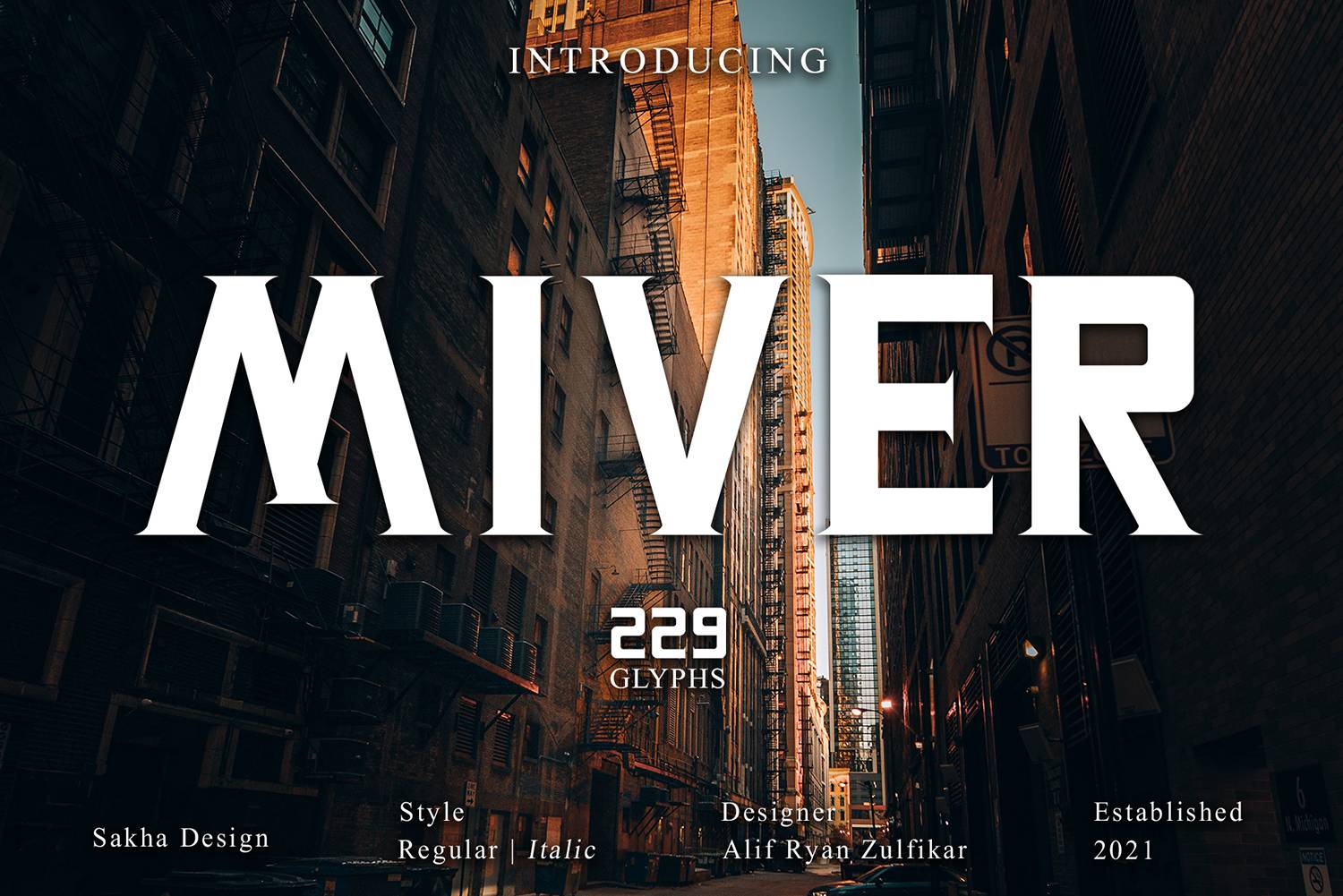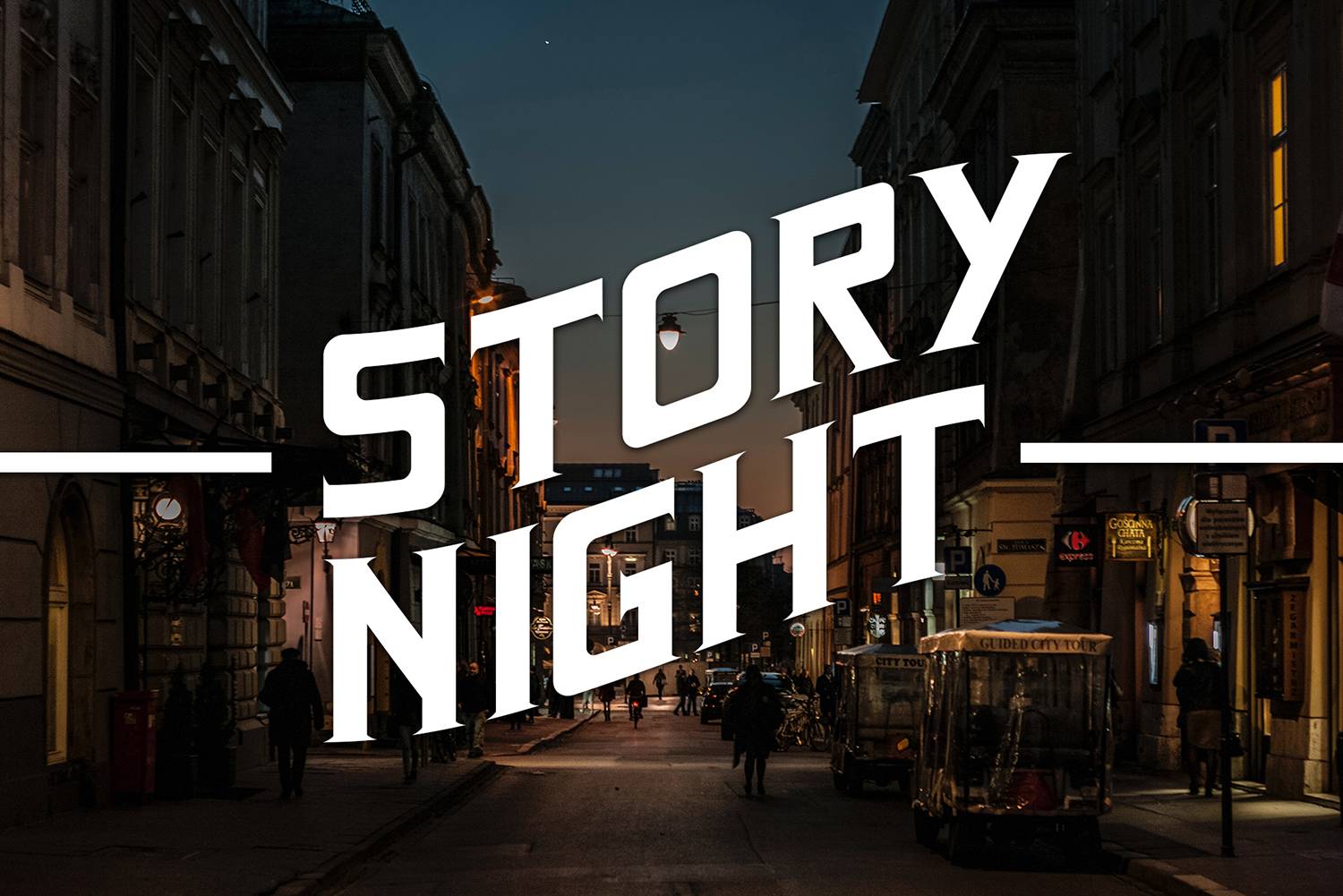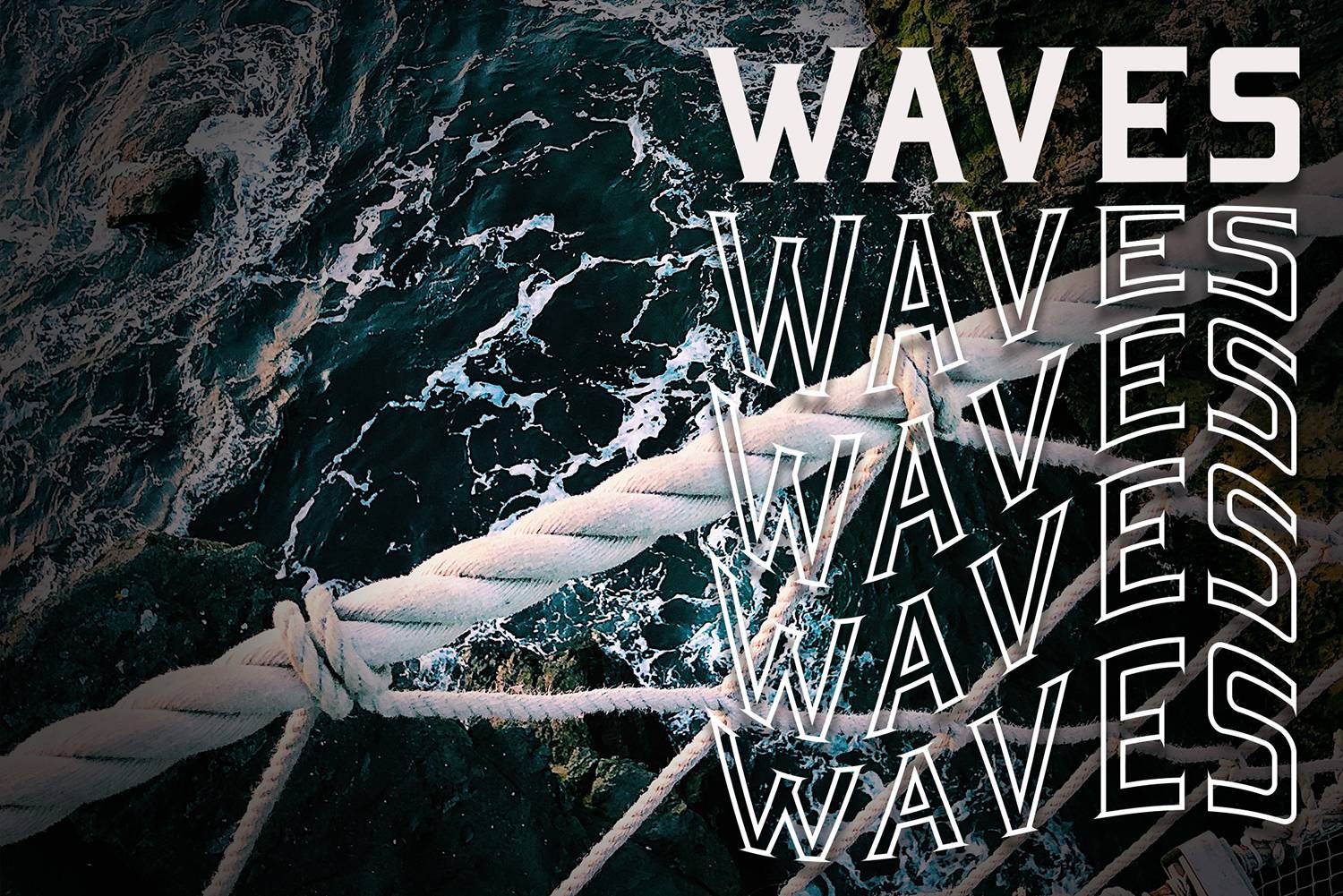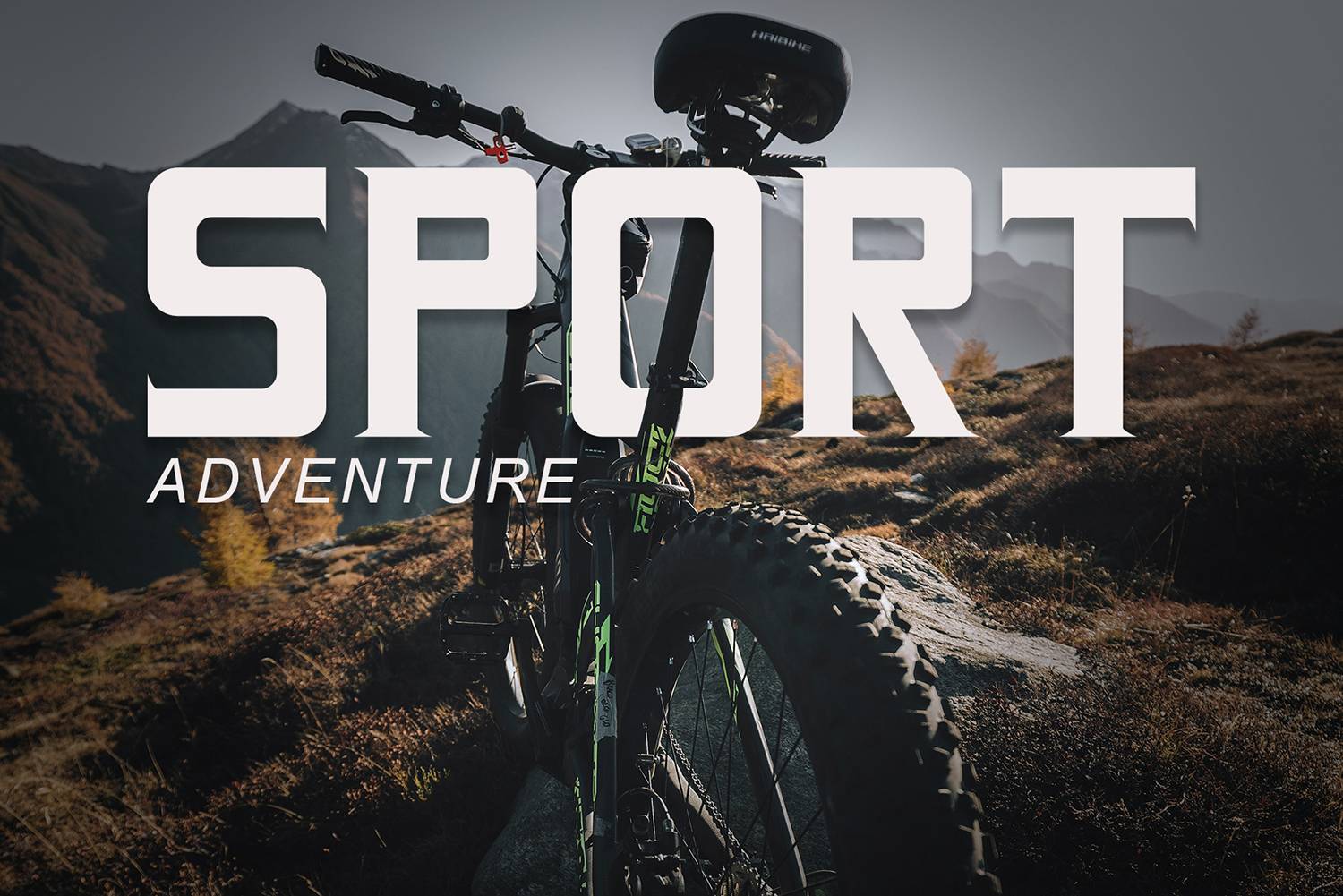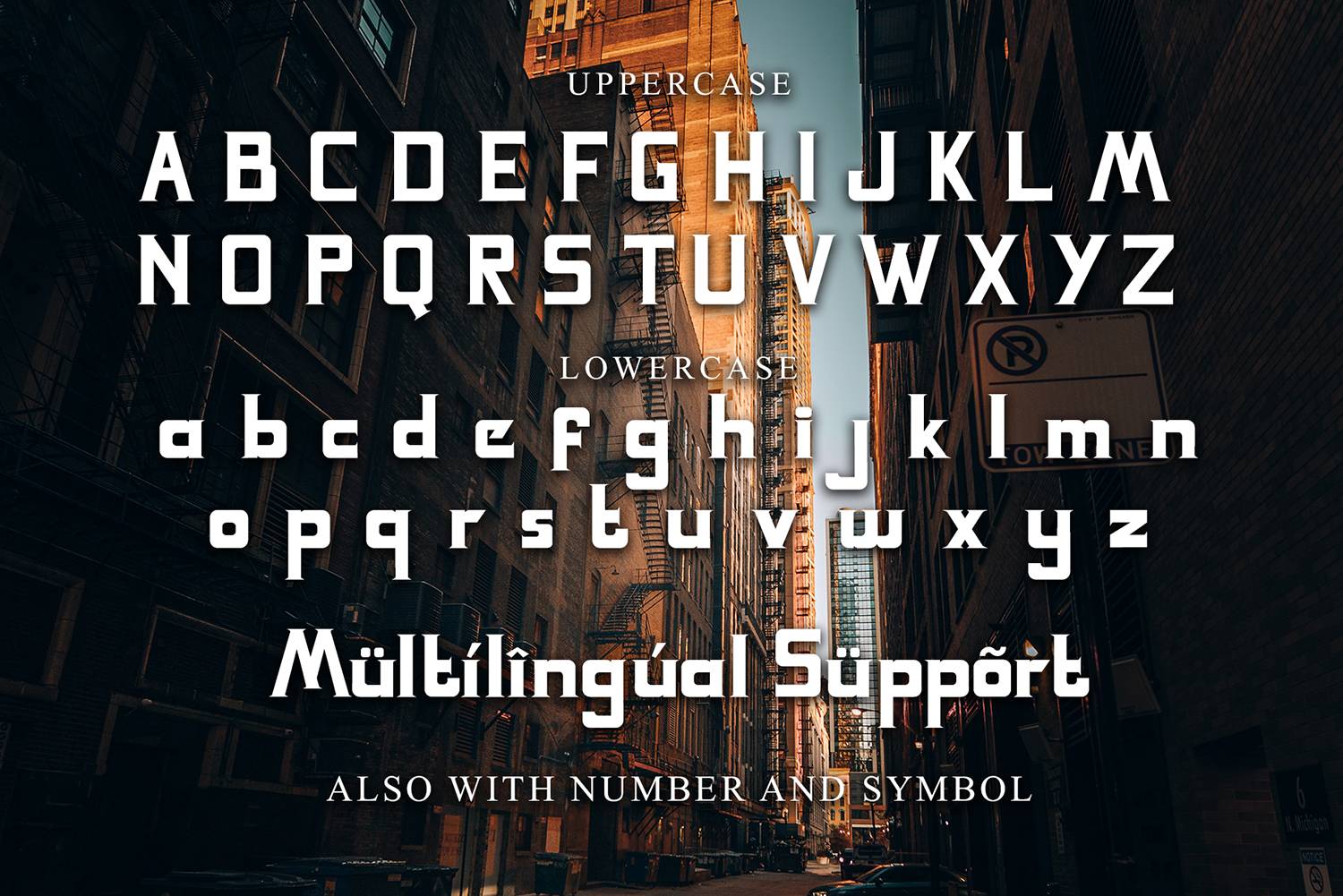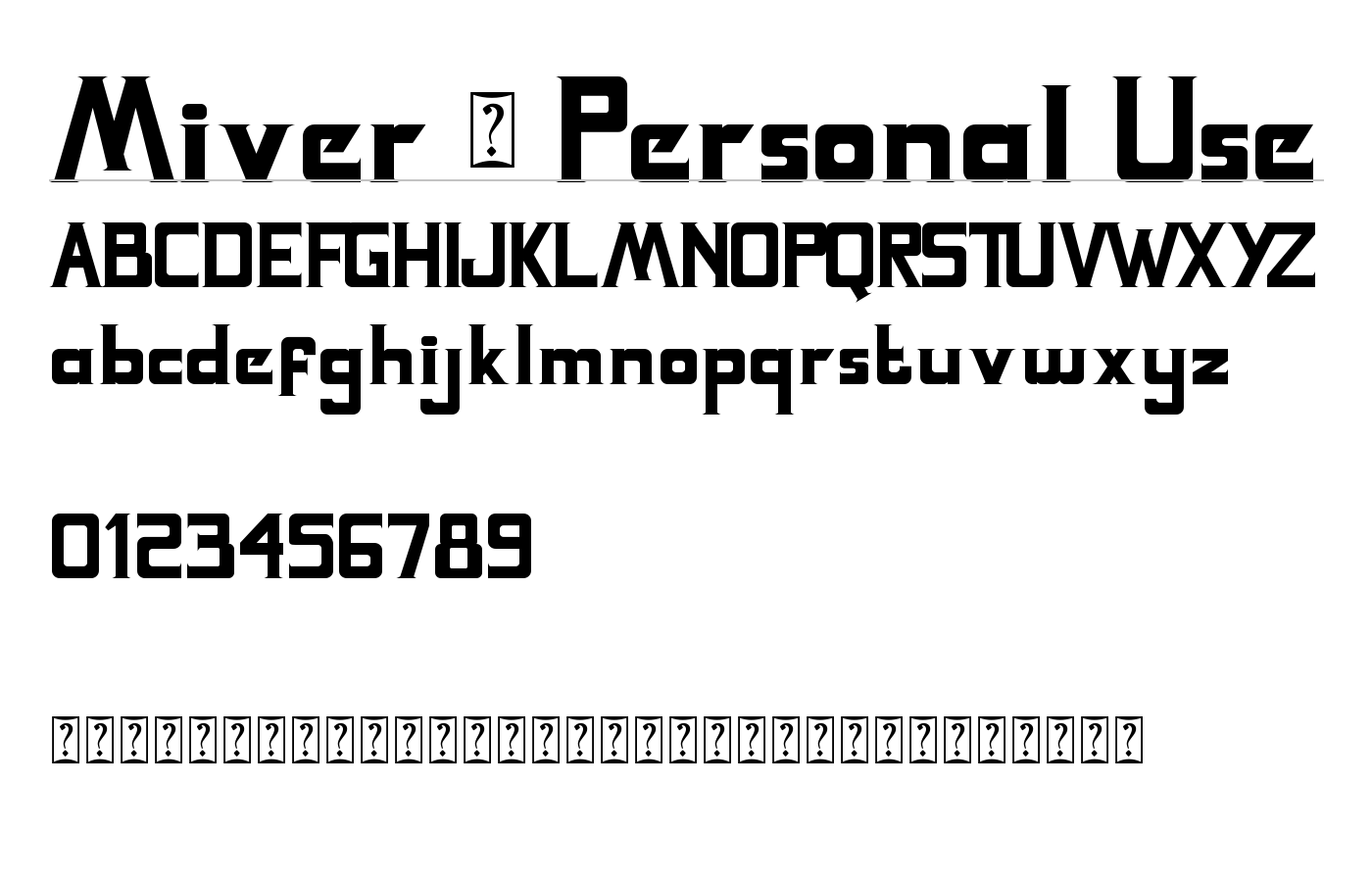
Miver is a bold, condensed serif font with a strong presence and a vintage, slightly Gothic character. Its high contrast strokes and sharp, angular serifs give it a dramatic and stylish feel, making it ideal for eye-catching headlines, logos, and branding that seek to convey strength and sophistication. This font works best in display settings where its unique letterforms can stand out and add personality.
Miver Font
About Miver Font